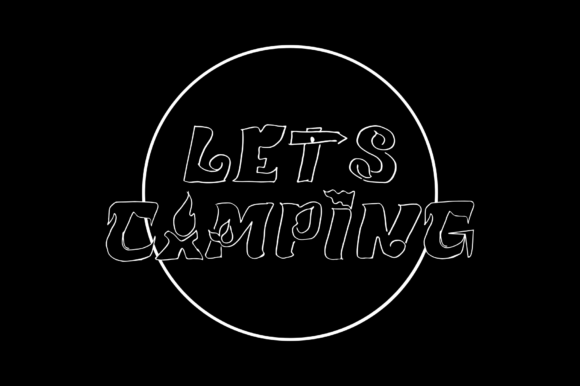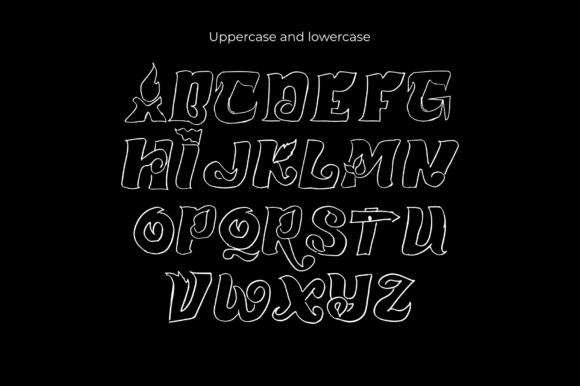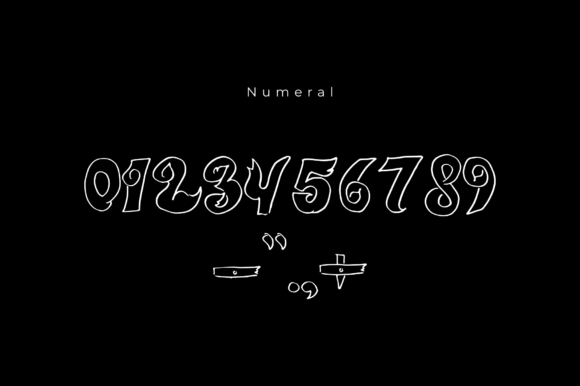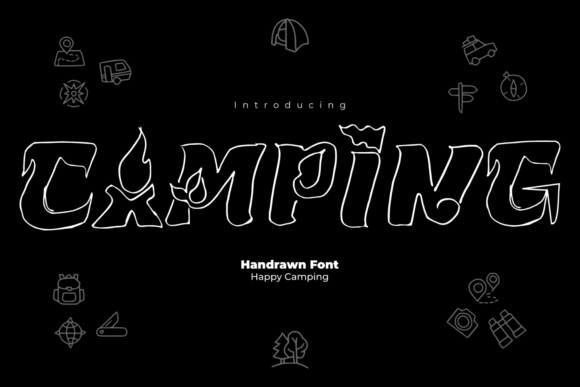
About Happy Camping Font
Happy Camping is a unique and adorable display font. It is hand-drawn to make it look natural and is perfect for various title needs in flyer designs, announcements, invitations, and entertainment.